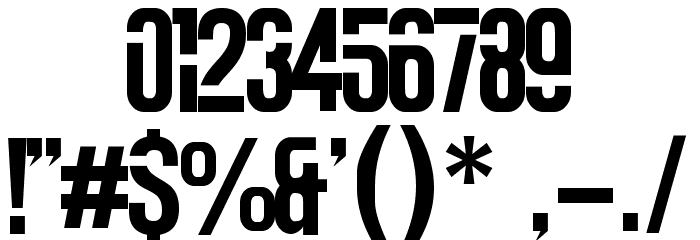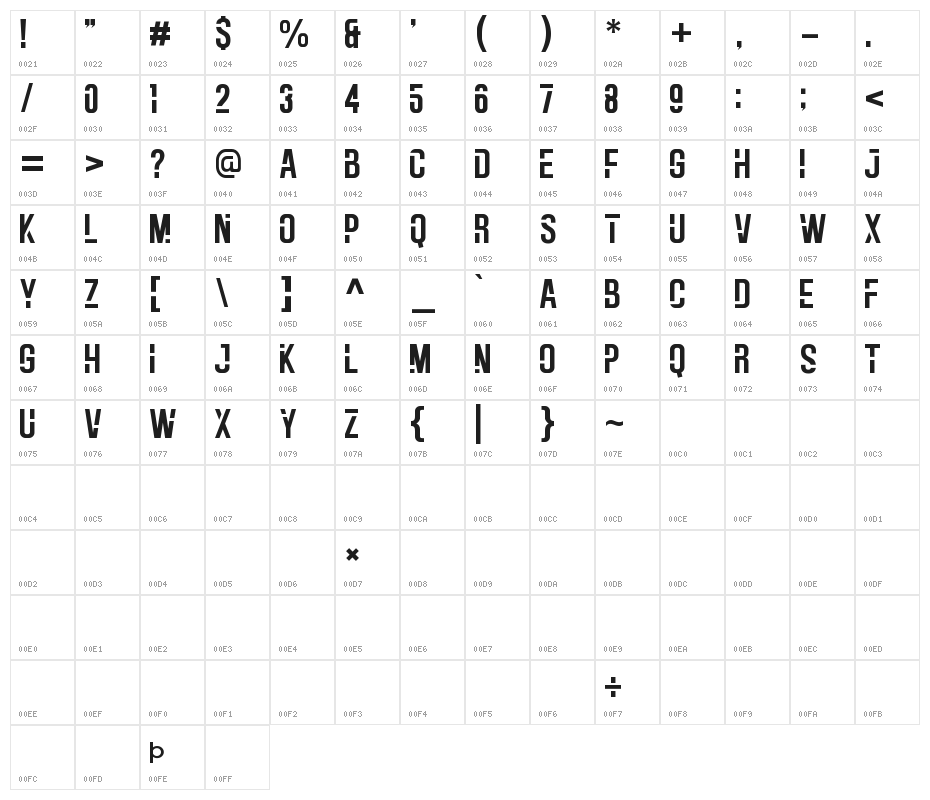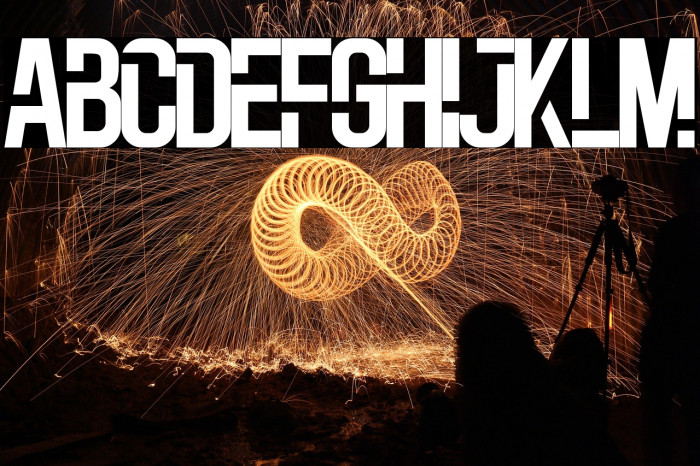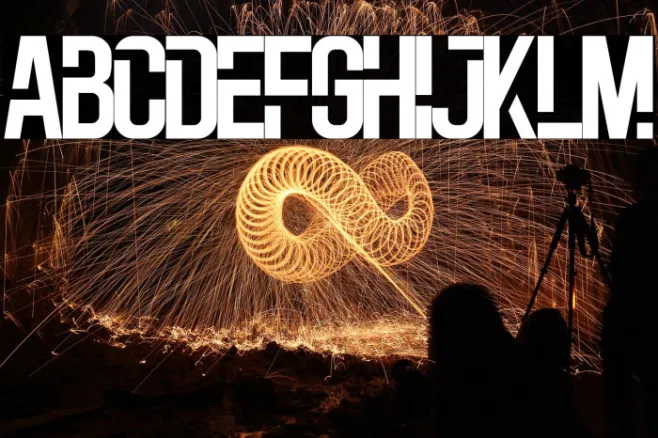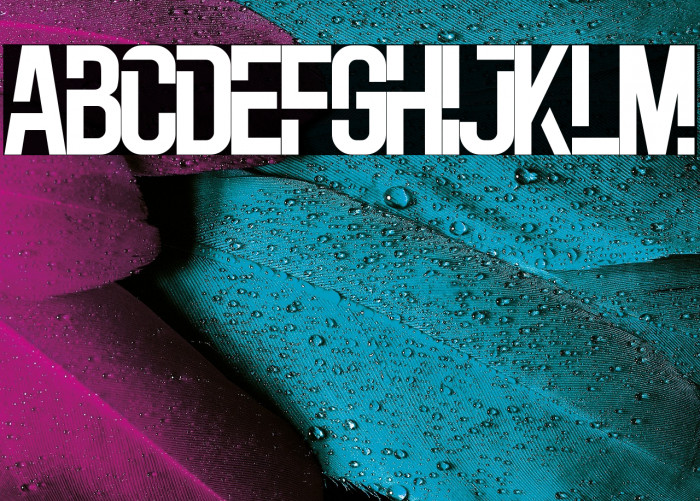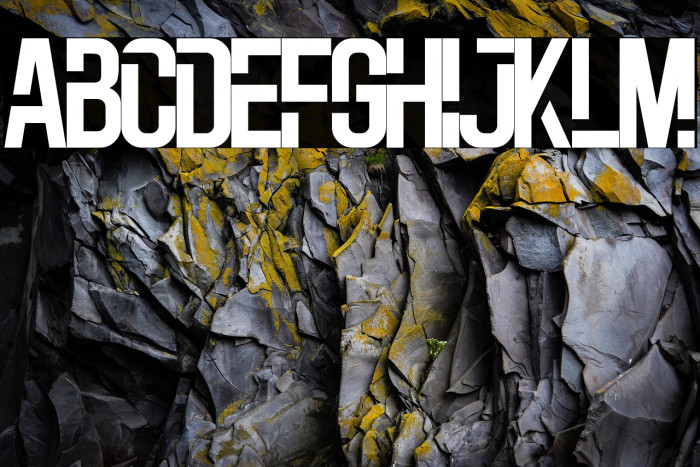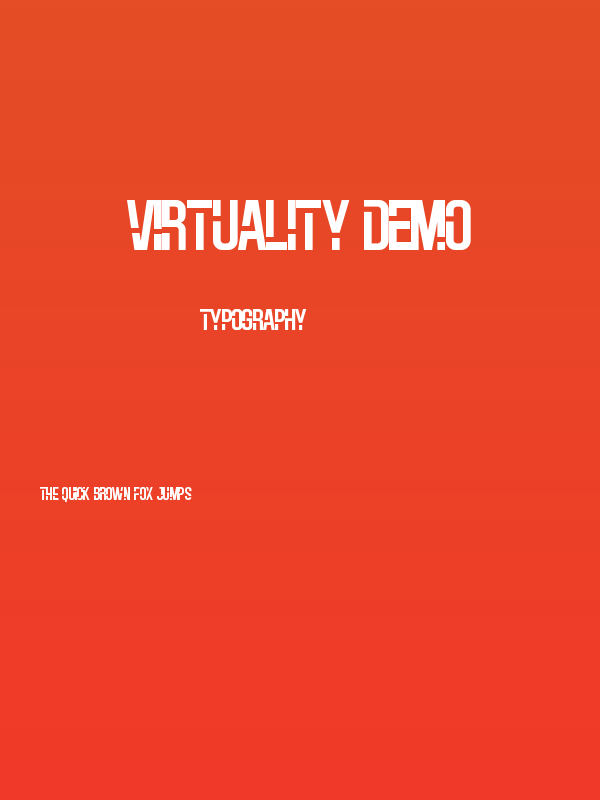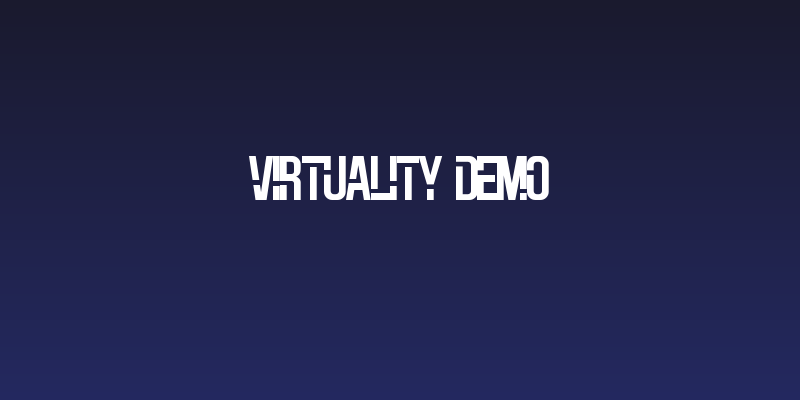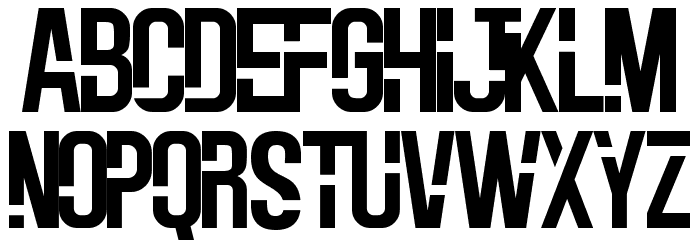
VIRTUALITY DEMO Font
VIRTUALITY DEMO Description
This font features a bold and striking design with a modern, geometric style. The characters are constructed with thick, uniform strokes, giving them a strong presence. The uppercase letters are particularly distinctive, with unique angular cuts and a futuristic aesthetic. The lowercase letters maintain the boldness and geometric structure, ensuring consistency throughout. The numerals are equally bold, with a clear and legible design. Special characters are included, maintaining the same bold and geometric style. This font is ideal for making a strong visual impact.
| Proposed Projects | Ideal for branding, posters, headlines, and any project requiring a bold, modern aesthetic. |